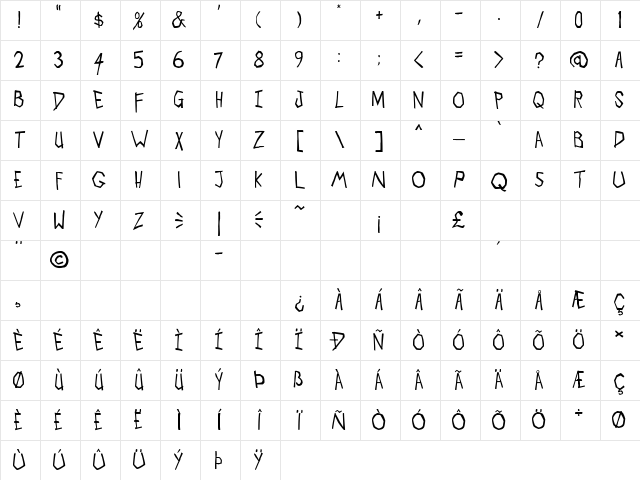
Skull Cracker Regular
Design Context for Skull Cracker
Skull Cracker is a composed and adaptable typeface that performs quietly and consistently across a wide range of design contexts.
Pro Tip: Use Skull Cracker in both headline and body roles to test its range before committing to a single application.